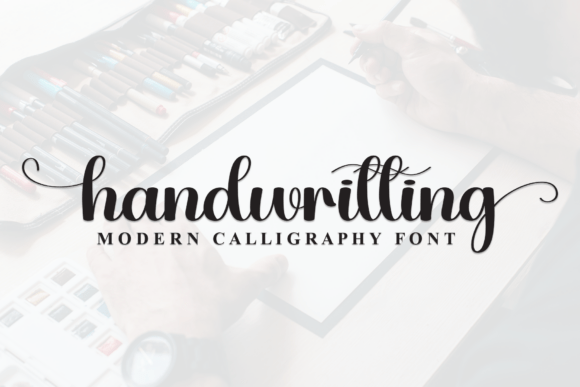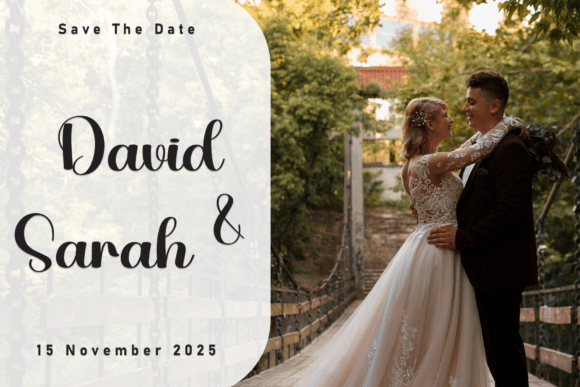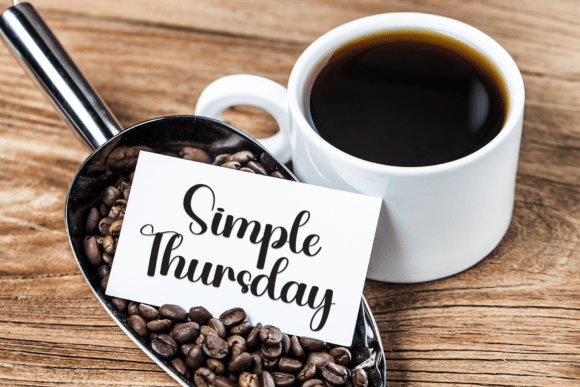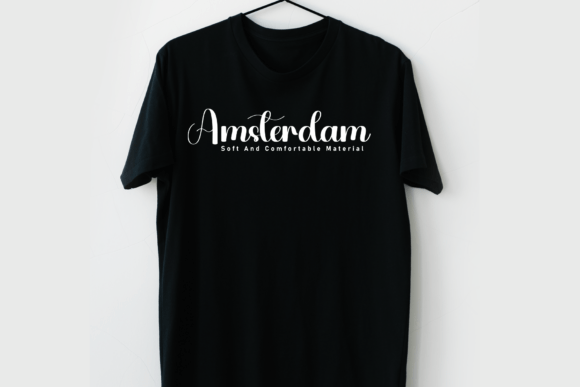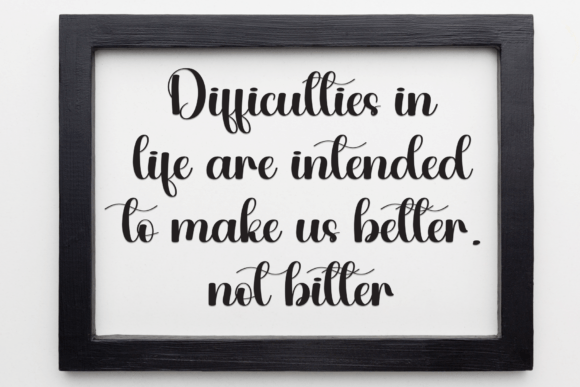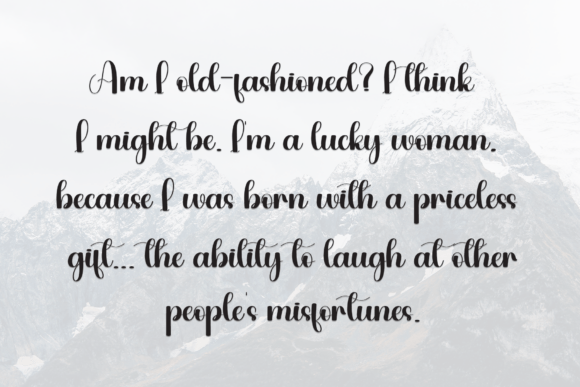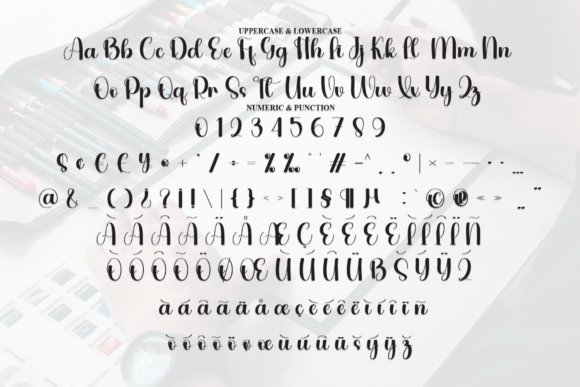
The Art of Handwritting Font: Bringing Personality to Your Designs
Have you ever sat down with a cup of coffee, a blank sheet of paper, and a pen, and let your creativity flow onto the page? That’s the magic of hand-drawn typography. But what if you could capture that same essence in a digital format, without sacrificing any of the flair or personality? Enter the Handwritting Font, a stylish script font that combines the beauty of hand-painted calligraphy with the versatility of a modern font.
This font is a game-changer for designers looking to add a touch of sophistication and creativity to their work. With its fluid brush strokes and dynamic curves, it’s perfect for logos, invitations, packaging, and social media graphics. Whether you’re a seasoned pro or just starting out, the Handwritting Font is sure to elevate your designs and make them stand out from the crowd.
Handwriting Font Key Features
- Unique Characteristics: The Handwriting Font features a unique, handwritten style with subtle variations in letterforms, strokes, and spacing, giving it a natural and personal touch.
Review of Handwritting Font
Overall, I think Handwritting Font is a solid choice for designers looking for a handwritten font. ✨ Here are some of its strengths:
- It’s highly customizable, allowing users to adjust the slant, size, and other characteristics to fit their specific needs.
- The font has a wide range of ligatures, which helps to create a more natural, handwritten feel.
- It’s available in a variety of weights, from light to bold, making it suitable for a range of design applications.
- The font may not be suitable for small text sizes, as the letters can become difficult to read.
- Some of the characters may not be perfectly consistent in terms of spacing and alignment.
- The font may not be as versatile as some other handwritten fonts on the market.
Overall, I think Handwritting Font is a good choice for designers who want a high-quality, customizable handwritten font. While it may have some limitations, its strengths make it a solid addition to any design toolkit.
Tips for Getting the Most Out of Handwriting Font
For a more authentic look, use a combination of uppercase and lowercase letters. Experiment with different font sizes and colors to create visual interest. Use handwriting font sparingly to avoid overwhelming the design.
Handwriting font is perfect for creating a personal touch in invitations, greeting cards, and social media graphics. It’s also great for adding a creative element to presentations and documents. Use it to create a sense of whimsy or nostalgia in your designs.
Alternatives to Handwritting Font for Designers
Great Vibes is a beautiful, elegant script font that is perfect for creating a luxurious and sophisticated look. It’s ideal for use in branding, advertising, and packaging design. Great Vibes has a more refined and polished feel compared to Handwritting Font, making it suitable for high-end projects.
Comparison: Great Vibes has a more refined and polished feel, whereas Handwritting Font has a more casual and handwritten look.
Carolyna Pro is a modern script font that is perfect for creating a bold and eye-catching look. It’s ideal for use in digital design, such as websites and social media, as well as print design, like posters and flyers. Carolyna Pro has a more dramatic and attention-grabbing feel compared to Handwritting Font, making it suitable for projects that require a lot of visual impact.